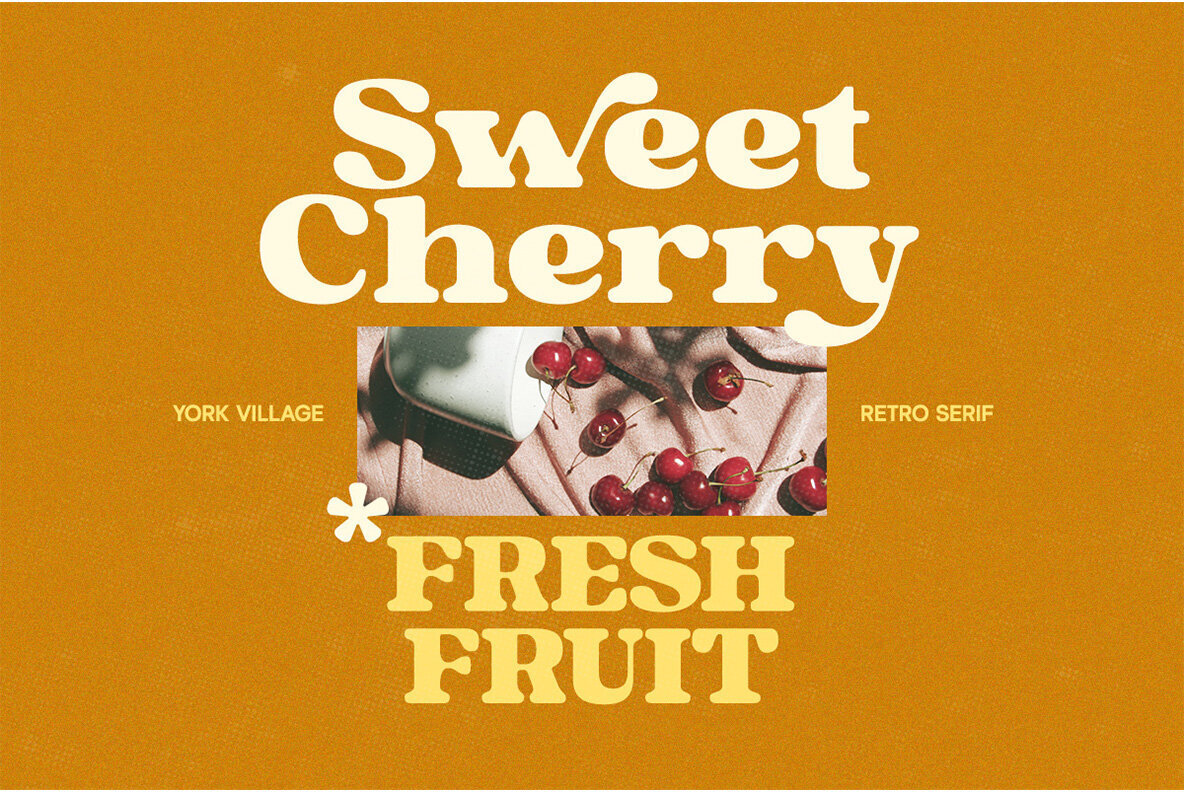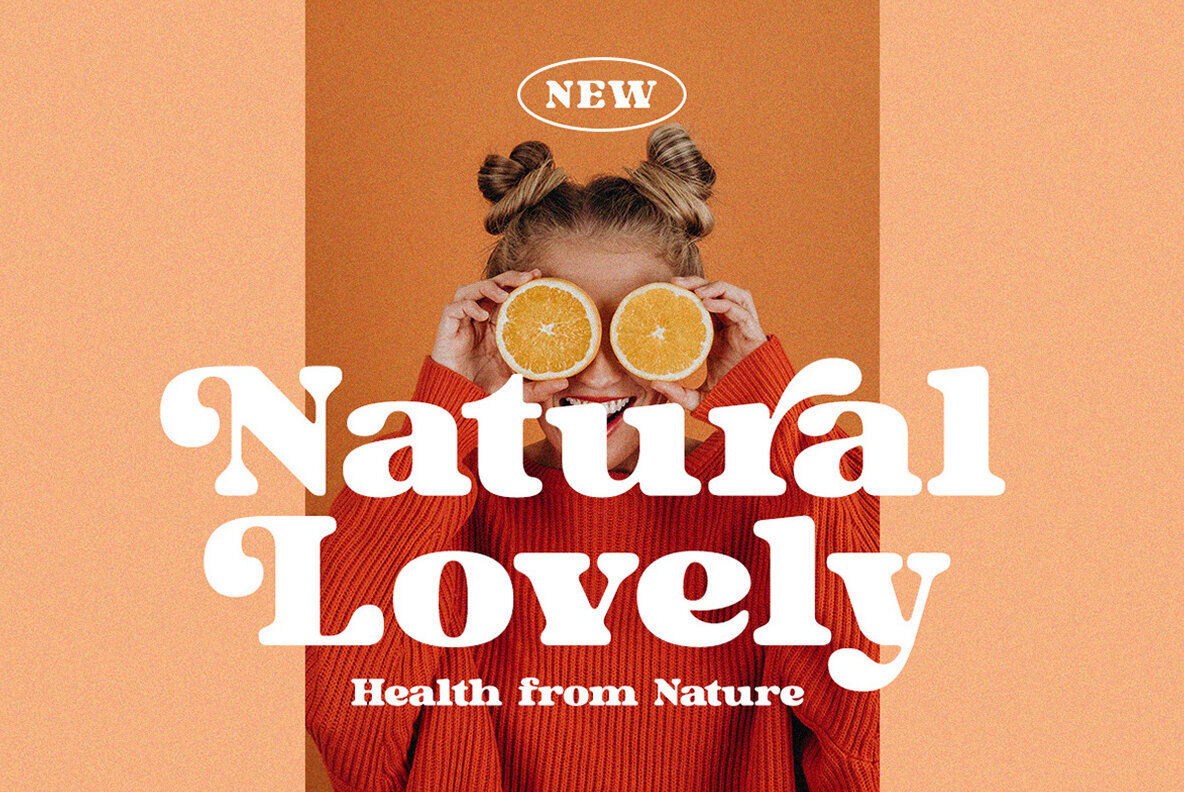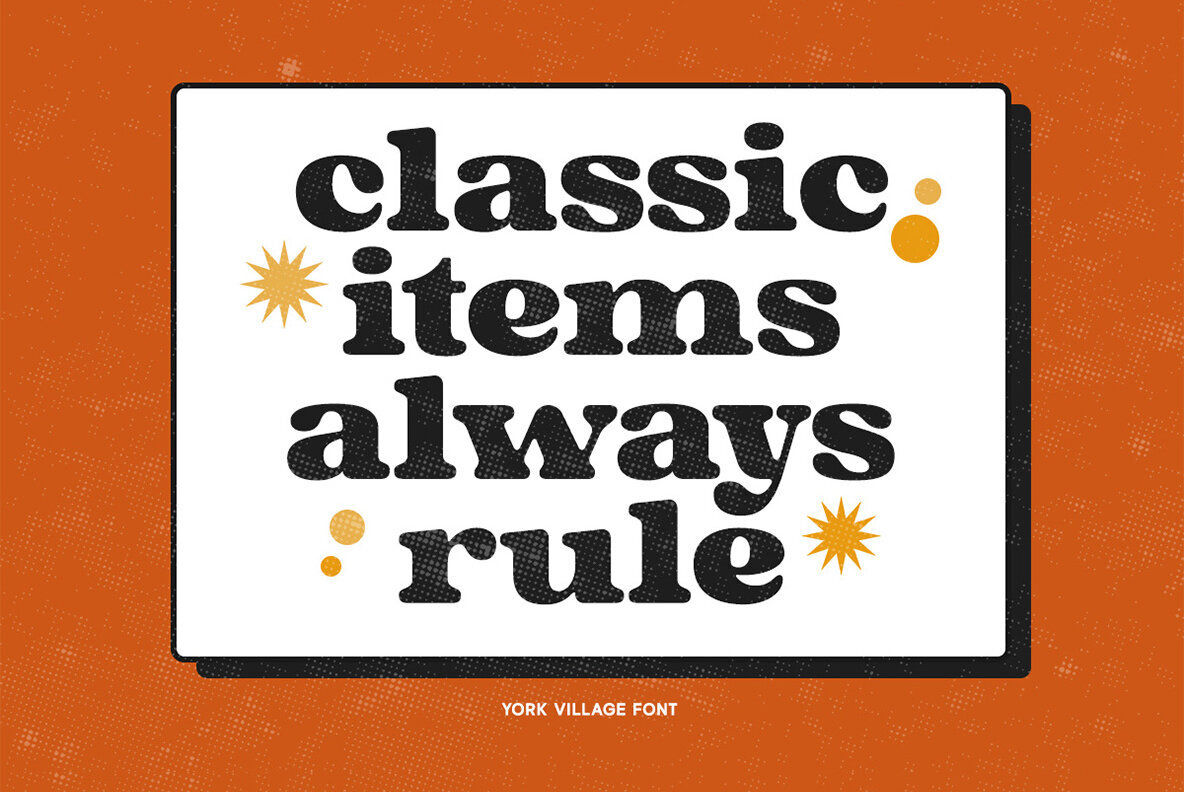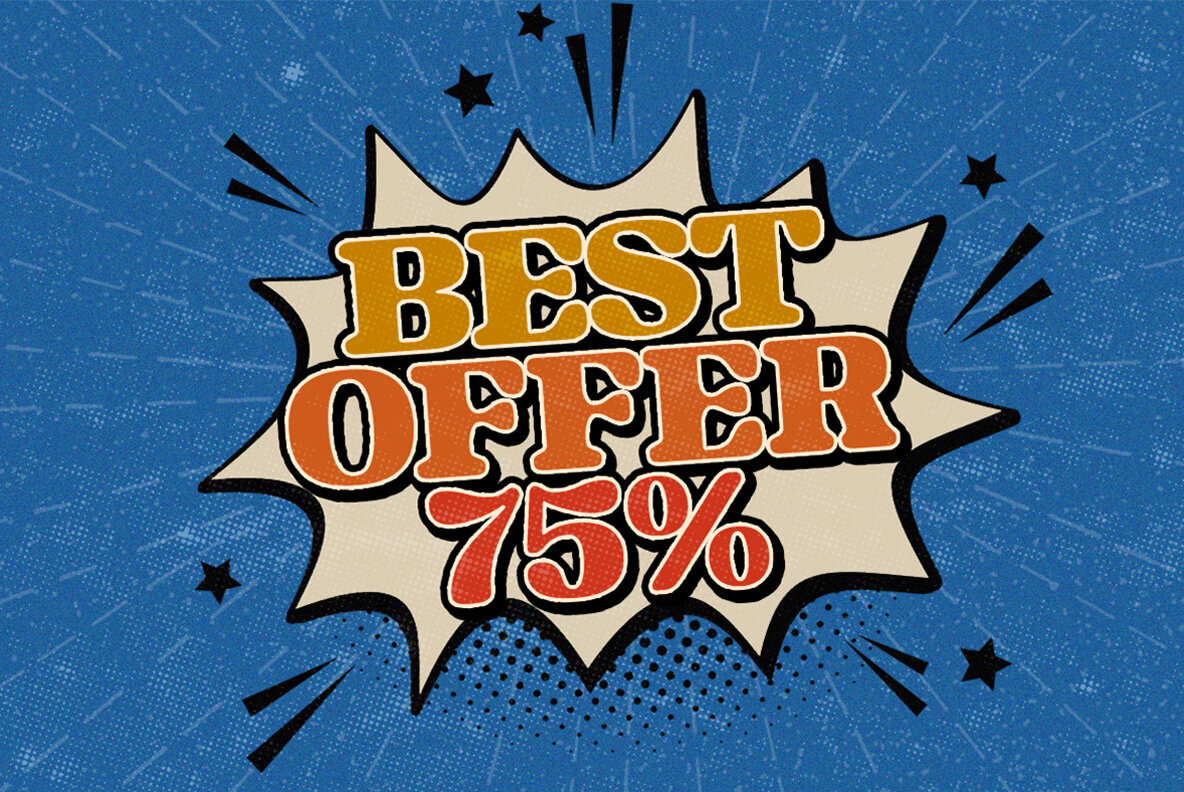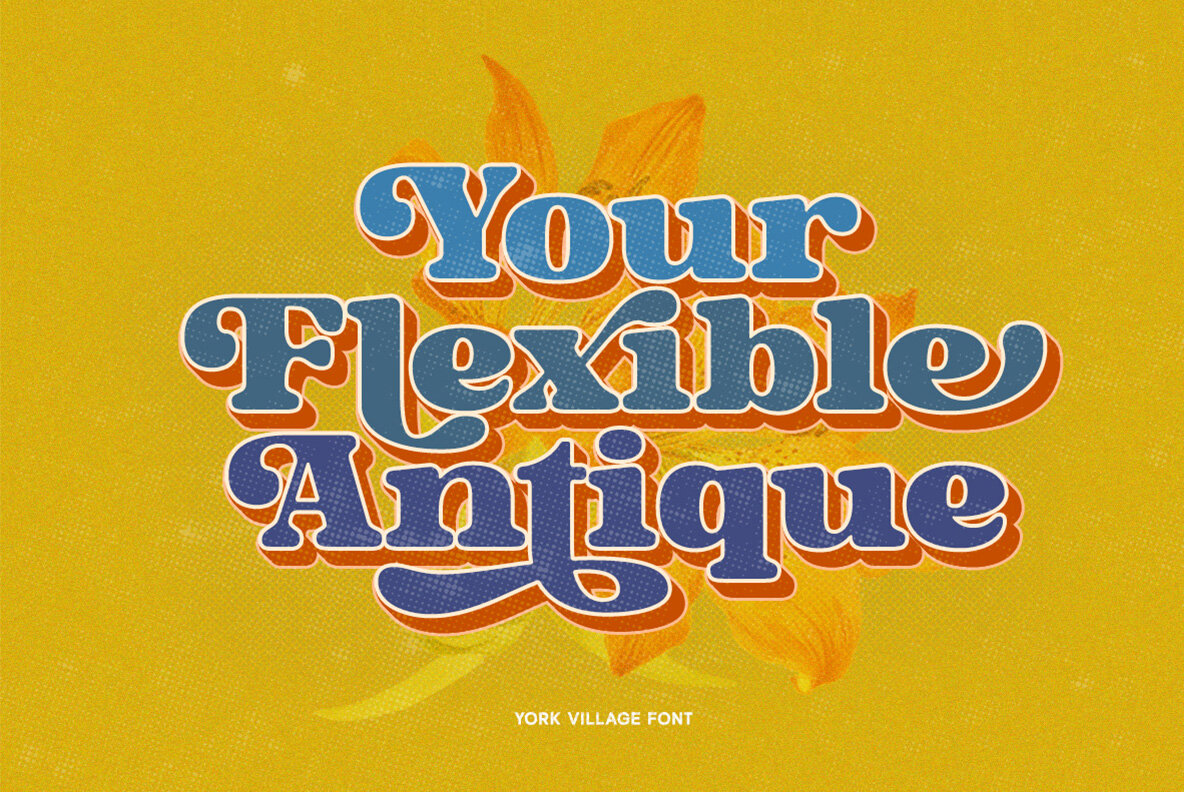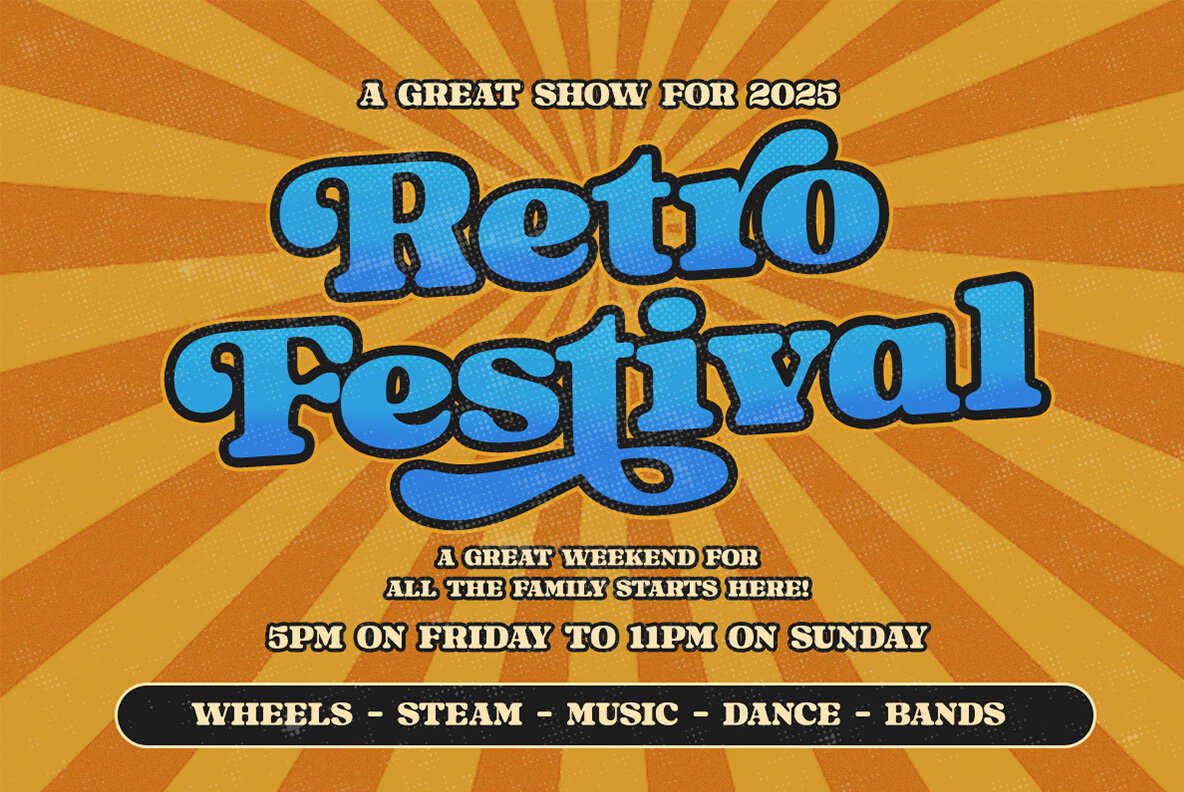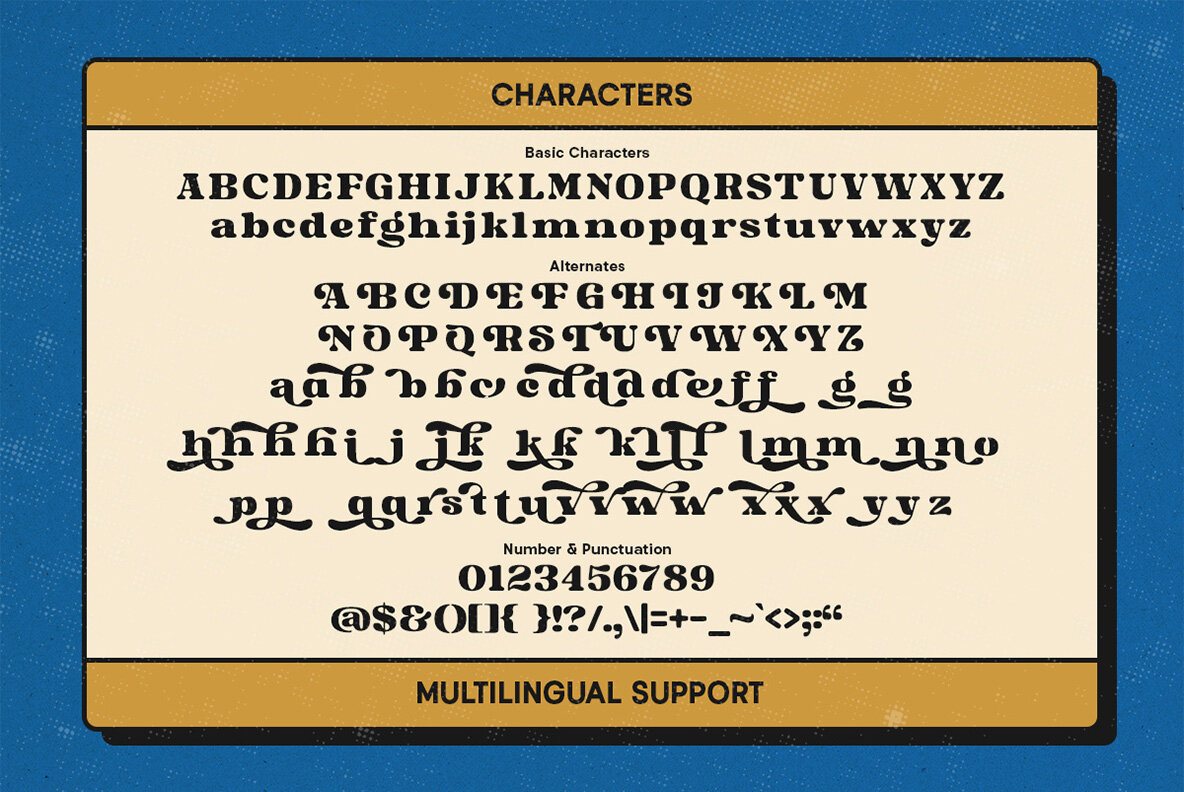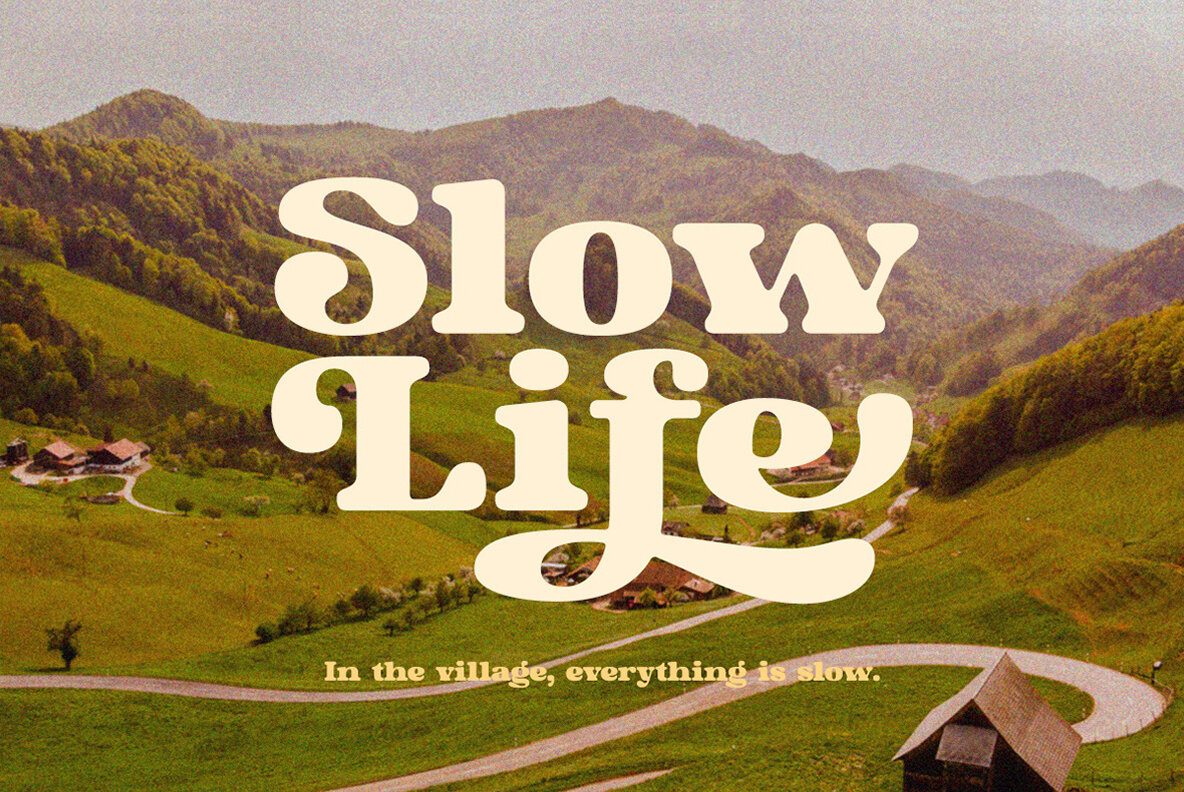
York Village Font
York Village Regular
York Village is a stylish, retro font with swashes that will make your logo stand out from the crowd. With a 70's vibe and creative ligatures for an extra touch of uniqueness this typeface has everything you need in one package - perfect to be applied on invitations or other formal documents such as books covers where style needs some spice!
- Alternates, Swashes & Ligatures